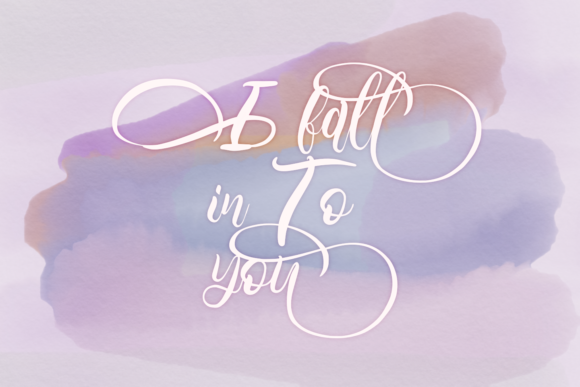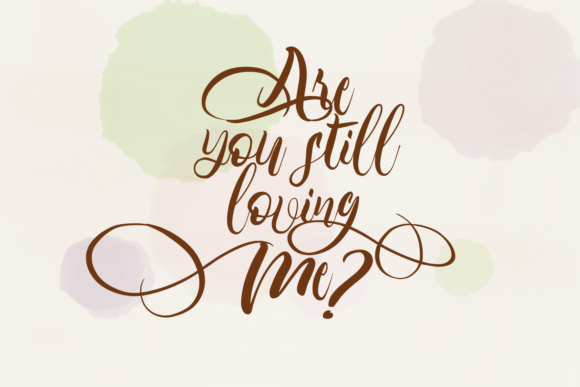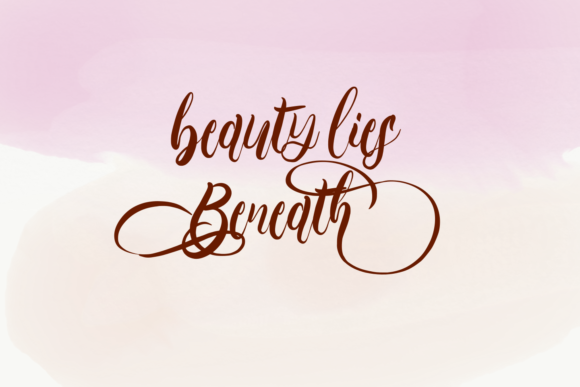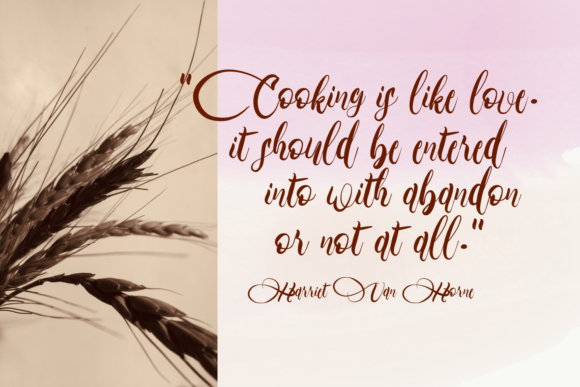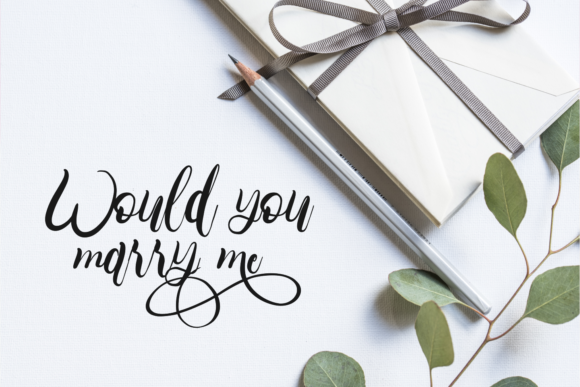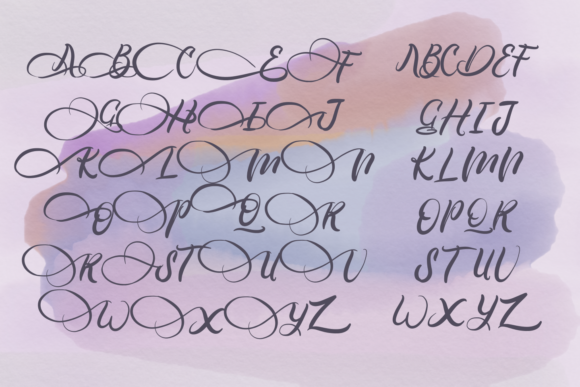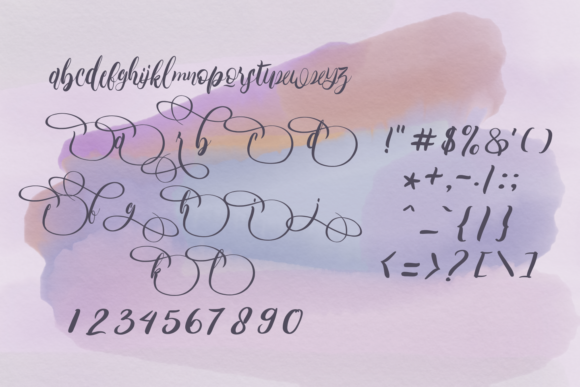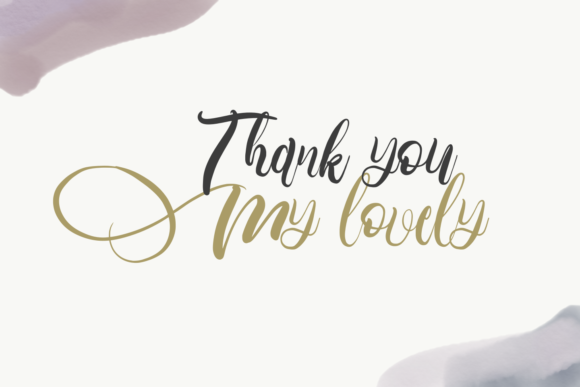
HomeScript FontsGilberta Font Script Fonts Gilberta Font FacebookXPinterestWhatsApp Gilberta Font Poster 2 Gilberta Font Poster 3 Gilberta Font Poster 4 Gilberta Font Poster 5 Gilberta Font Poster 6 Gilberta Font Poster 7 Gilberta Font Poster 8 Gilberta Font Poster 9 About Gilberta Font Gilberta is a super swashy handwritten font. It will add an elegant touch to your designs! DOWNLOAD NOW People also explored EIFFEL IN LOVE (FONT TRIO) Woebegone Simple Sunrise Font Little Star Story Font Bluebery Oatmeal Bold Font Grateful Monday Font Sudah Pantas Font Beauty Girl Font Sometimes Rough Font 264 0 TagsGilberta Font Previous articleLetterink FontNext articleUnimate Font LEAVE A REPLY Cancel reply Comment: Please enter your comment! Name:* Please enter your name here Email:* You have entered an incorrect email address! Please enter your email address here Website: Save my name, email, and website in this browser for the next time I comment. Personal Use Free Beattingvile Personal Use Free Read more about this font The Sweet Neo Personal Use Free Read more about this font Leorio Personal Use Free Read more about this font Shrag Script Personal Use Free Read more about this font BLOG 5 Fonts That Will Dominate Design Trends in 2026 5 Fonts for 2026 That Will Dominate Design Trends Typography plays a critical role in visual communication, and as we look ahead to 2026, it’s... Transform Your Website: Elevate Your Typography with 7 Best Web Font Generators Free vs Paid Fonts: Why Investing in Premium Fonts Is Worth It Best Fonts for YouTube Videos: Make Your Thumbnails Stand Out